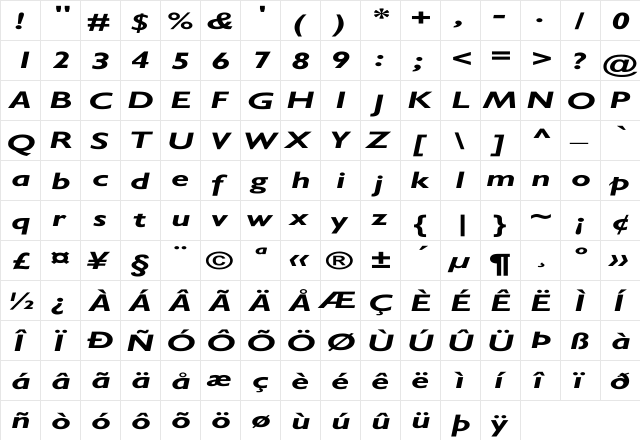
GillSans-BoldItalic Ex Regular
Design Context for GillSans-BoldItalic Ex Typeface
GillSans-BoldItalic Ex is a composed and adaptable typeface that performs quietly and consistently across a wide range of design contexts. The slanted form adds forward momentum and visual energy. Its bold stroke weight gives it real presence on the page.
Pro Tip: Try GillSans-BoldItalic Ex for annotation and caption copy alongside an upright companion — the contrast in angle creates a dynamic but ordered typographic system.